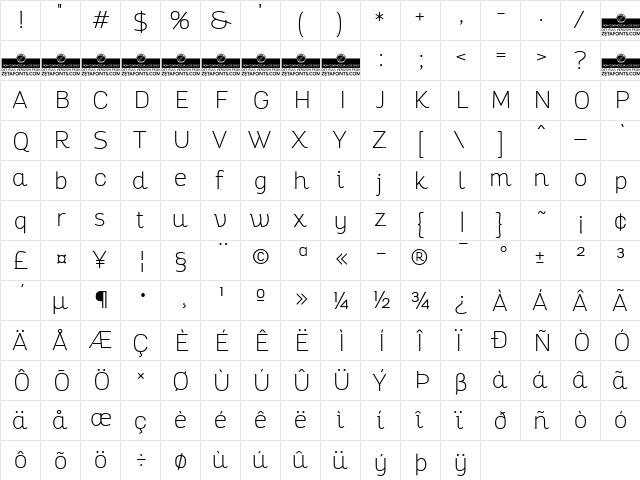
Altair Thin Regular
| Foundry | Zetafonts |
| Designer | Francesco Canovaro |
Design Context for Altair Thin Typeface
Altair Thin takes a measured approach to typography — its balanced proportions and neutral character make it a reliable workhorse for both digital and print work. The delicate stroke weight brings airiness and refinement to layouts.